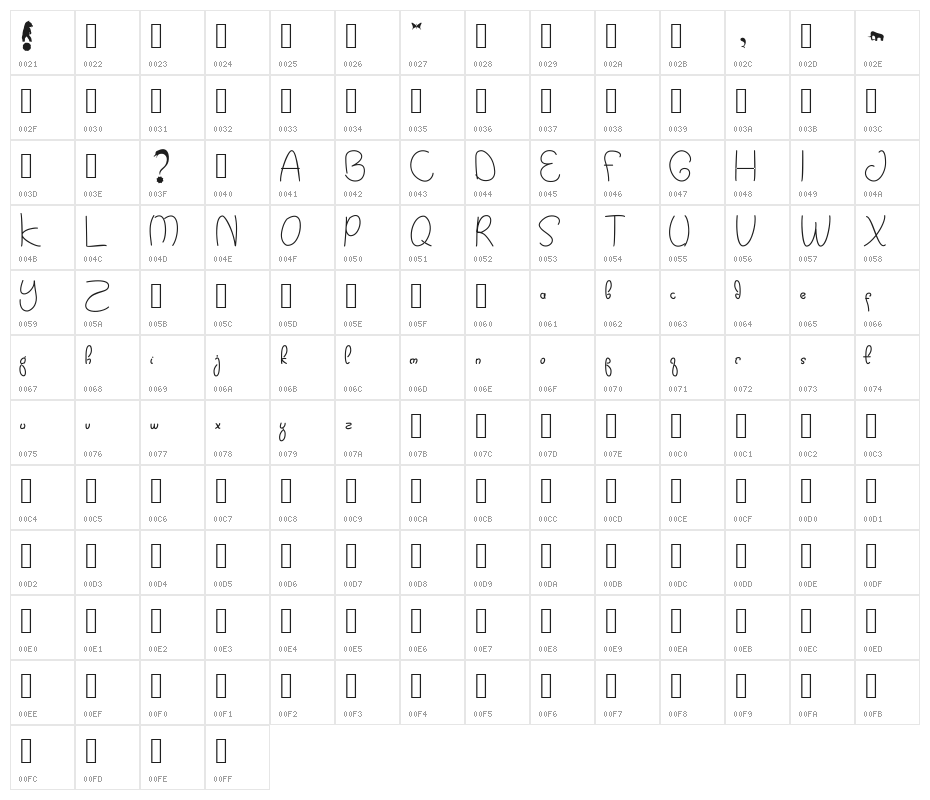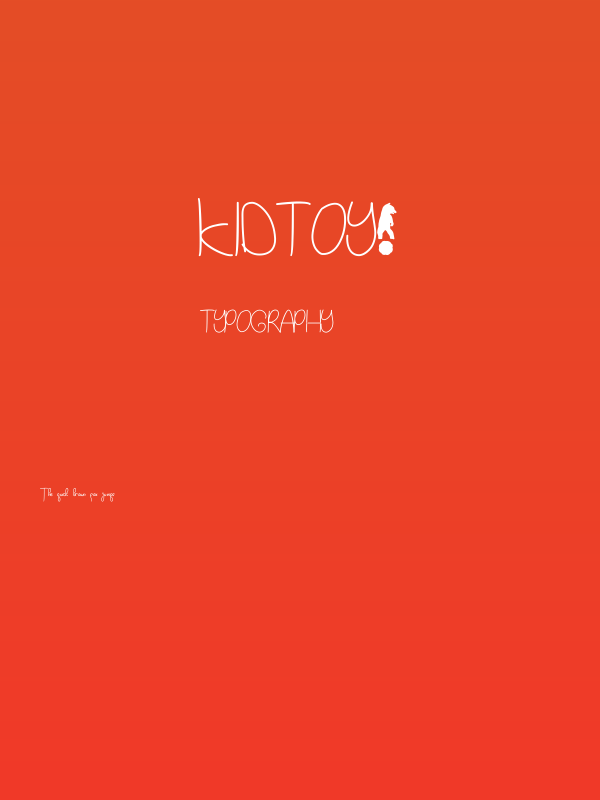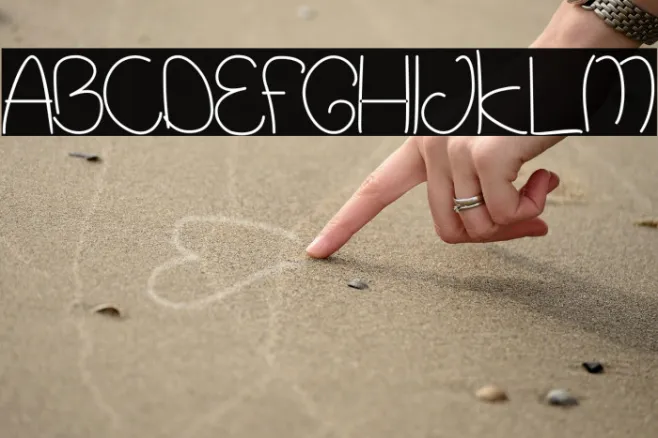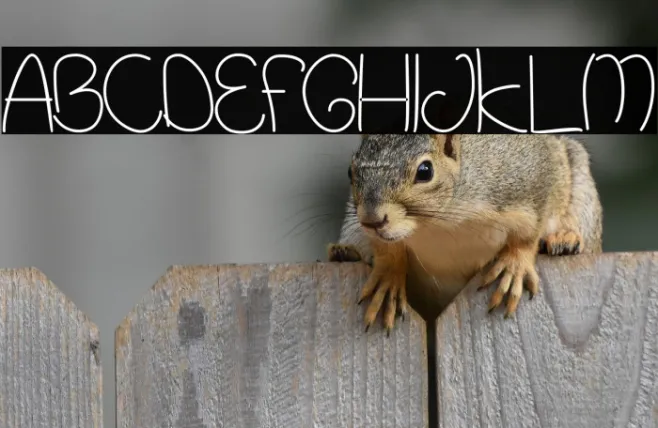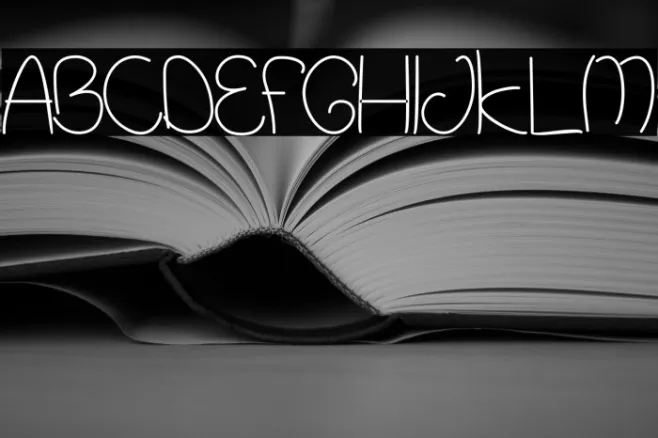
Kidtoy! Font
Kidtoy! Description
This playful and whimsical font features a unique, hand-drawn style with a touch of elegance. The uppercase letters are tall and slender, with a slight curve that adds a sense of movement and fluidity. The lowercase letters maintain a consistent style, with loops and swirls that enhance the playful nature of the font. The overall design is light and airy, making it suitable for projects that require a fun and approachable aesthetic. The font includes a variety of special characters and symbols, adding versatility to its use. Its distinctive style makes it ideal for children's products, playful branding, or creative projects that aim to capture a sense of joy and imagination.
| Use Case | Logos, Invitations, Posters |
| Proposed Projects | Ideal for children's books, playful branding, creative invitations, and whimsical posters. |